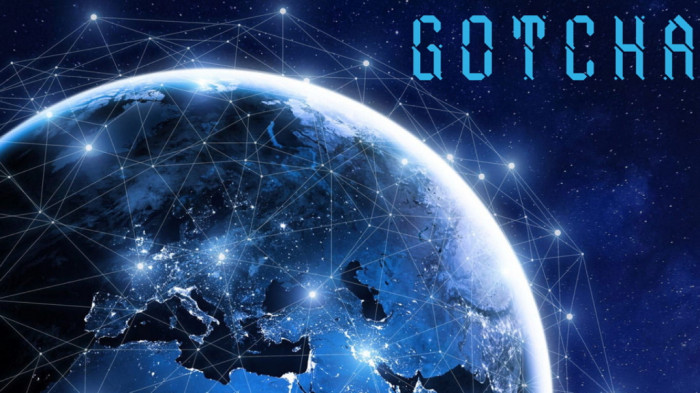
Do sheeps dreams of electric androids? Ask about everything. Our Future begins in... 3... 2... 1... NOW!
This is really cool!
Nice LED style font. Each capital letter looks like a 7-segments LED with little twists here and there. Superb demo pics. 10/10
@Maestro Frodo7: Thanks a lot. Really, the original idea comes to me from an old and horrible sketch with a 7-segment clock ugly font. Some twists after, this appeared in front of me.
A beautiful, eclectic mix of Led and antique decorations. Rococo’s Basilisk. Even if it only seems to me, the future will not be devoid of eclecticism, but will only strengthen it.
A Very Lovely Font... I love finding ones that have sort of future vibes, and it breaks my mind that someone could make something this good. Great Work!!
a very clean and futuristic design with a hint of digital clocks 10/10